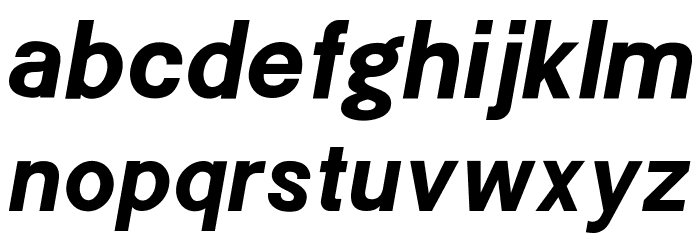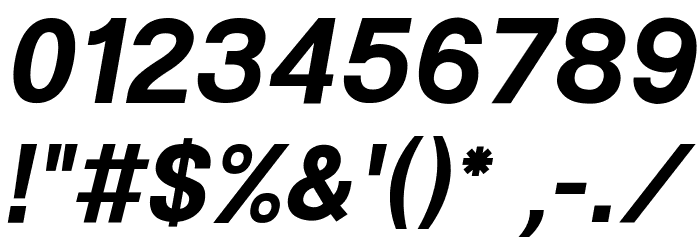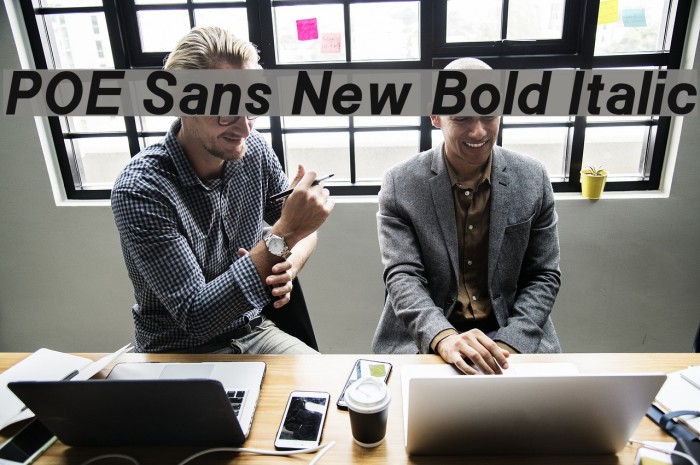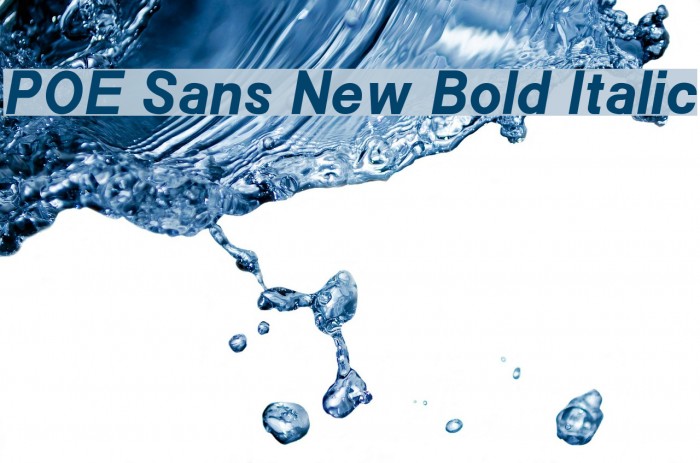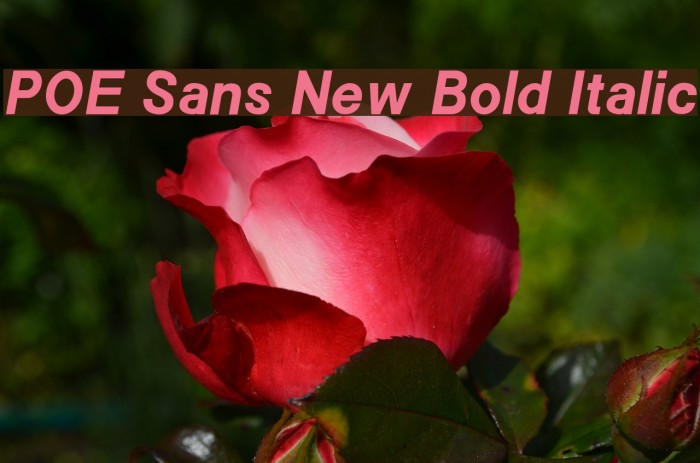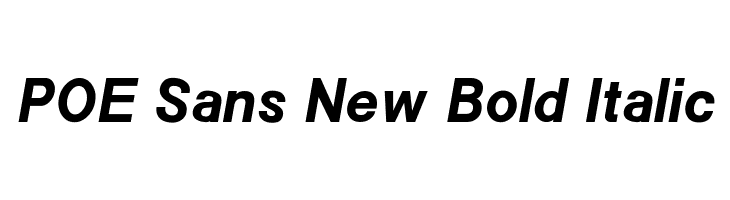
POE Sans New Bold Italic Font
This font features a bold and italicized style, characterized by its strong presence and dynamic slant. The letters are well-defined with a consistent stroke width, giving it a robust and modern appearance. The uppercase and lowercase letters maintain a uniformity that enhances readability, while the numerals and special characters are clear and distinct. Its sans-serif nature contributes to a clean and uncluttered look, making it versatile for various design applications. The italic angle adds a sense of motion and emphasis, suitable for creating impactful headlines or attention-grabbing text.
- Proposed Projects: Ideal for branding, advertising, headlines, and digital content where a strong and modern impression is needed.
- Category: Sans-Serif
- Use Case: Headlines, Logos, Advertising